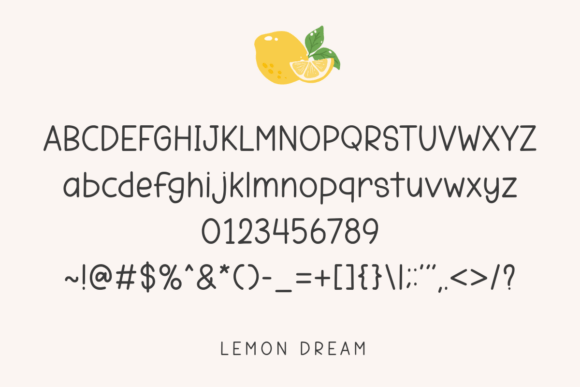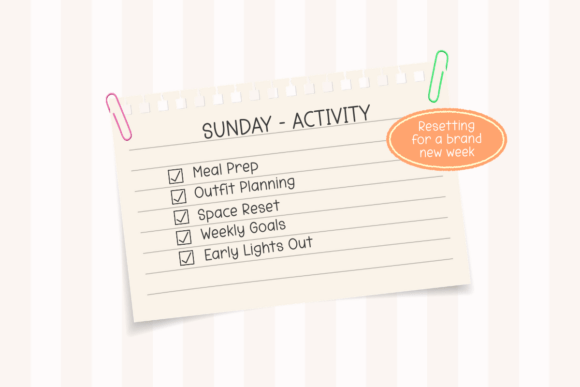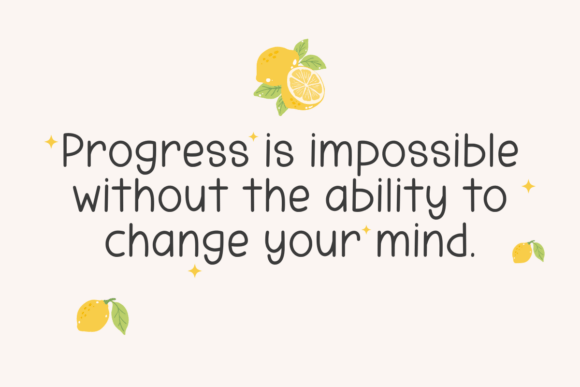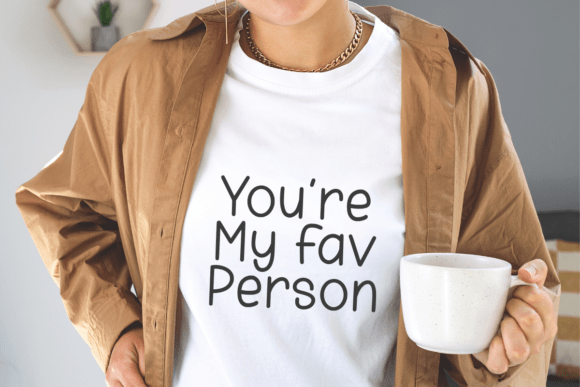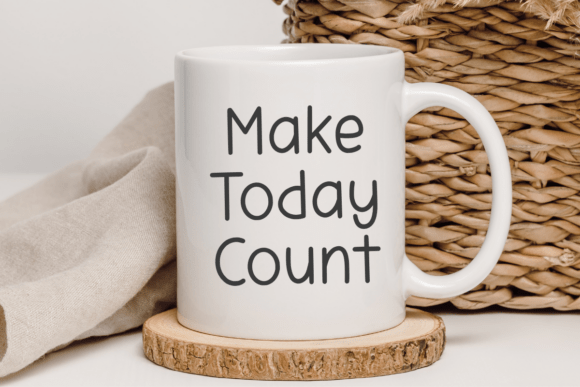
Introduction to Lemon Dream Font
Lemon Dream is a playful and aesthetic handwriting font designed to bring a sense of joy and personal warmth to all your creative projects.
This font features clean, bouncy lines and a charming monolinear weight that radiates a friendly yet modern vibe, making it the perfect choice for playful branding, creative journals, and whimsical quote designs This versatile font is highly recommended for craft-based businesses such as custom acrylic keychains, vinyl stickers, and nursery decor that requires a touch of handmade authenticity.
Key Features of Lemon Dream Font
Why Choose Lemon Dream Font?